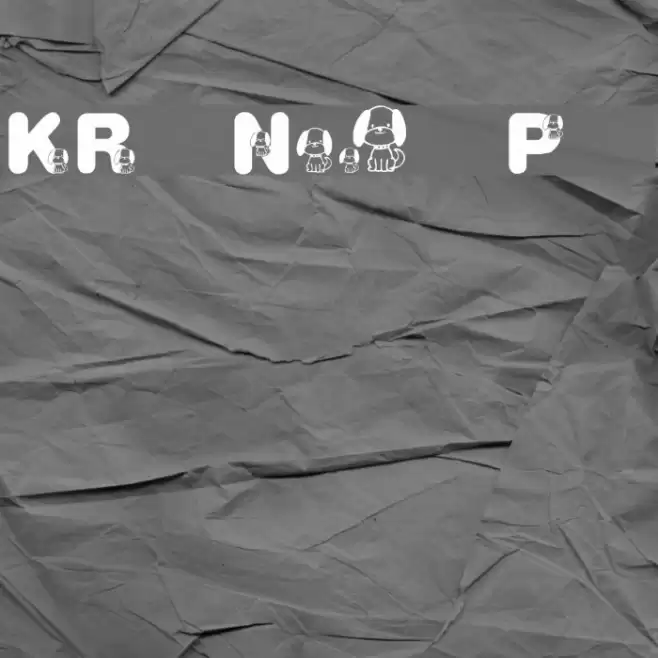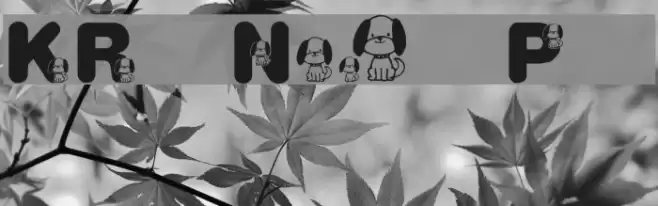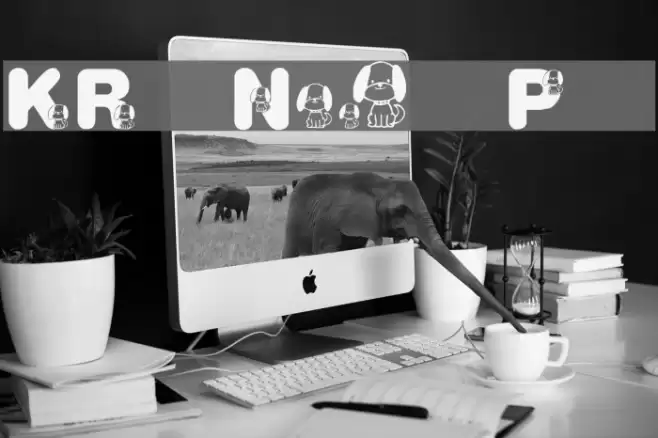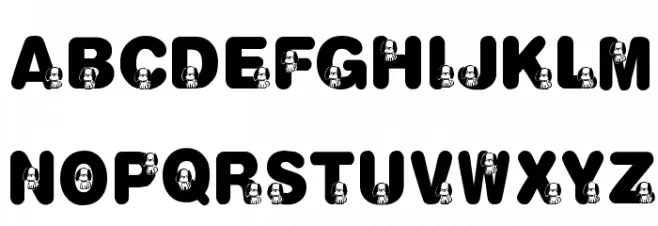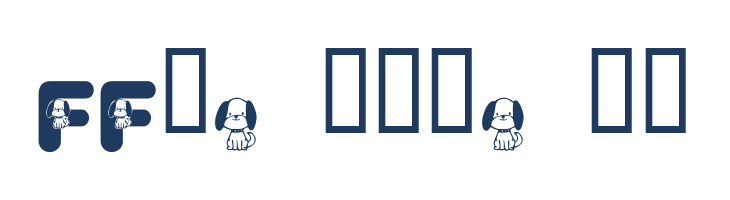
KR Nick's Puppy 1 Font
KR Nick's Puppy 1 Description
This playful and whimsical font features bold, rounded uppercase letters with adorable puppy illustrations integrated into each character. The design is highly decorative, making it ideal for projects that require a fun and lighthearted touch. Each letter is crafted with a consistent thickness, providing a uniform appearance across the alphabet. The integration of the puppy graphics adds a unique and engaging element, making it particularly suitable for children's materials, pet-related branding, or any creative project that seeks to convey joy and friendliness.
A playful, decorative font with puppy illustrations in bold, rounded letters from Uncategorized fonts.
- Proposed Projects: Ideal for children's books, pet store branding, playful posters, and greeting cards.
- Overall Style: Playful, Whimsical
- Use Case: Headlines, Logos, Decorative text